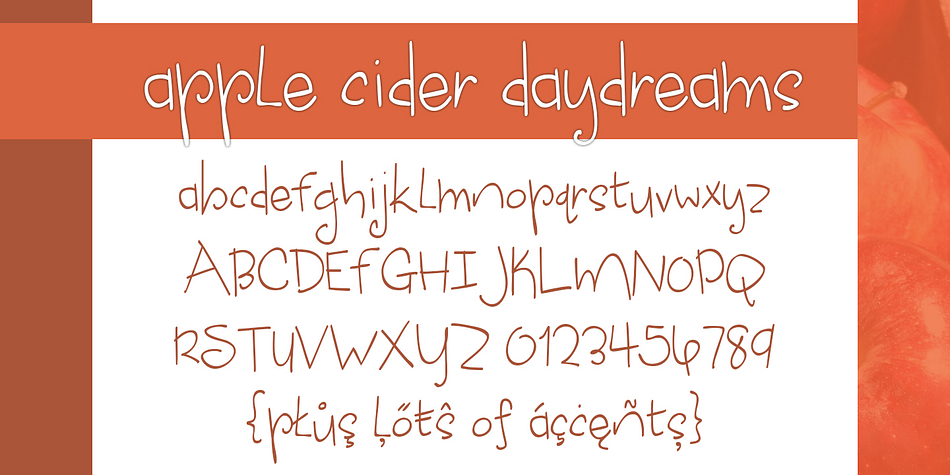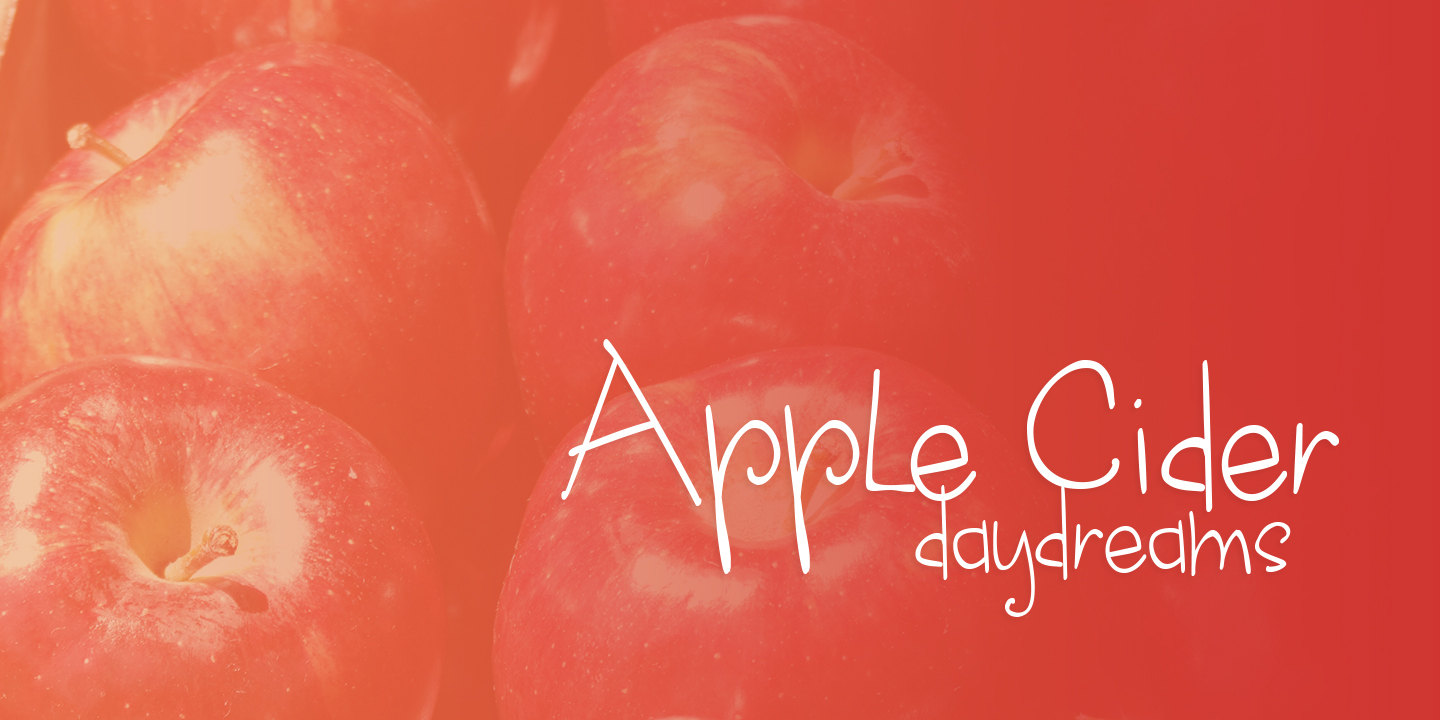
Apple Cider Daydreams is a hand drawn and kids font published by Brittney Murphy Design.
Apple Cider Daydreams is a fun hand-drawn font great for crafts or scrapbooking!